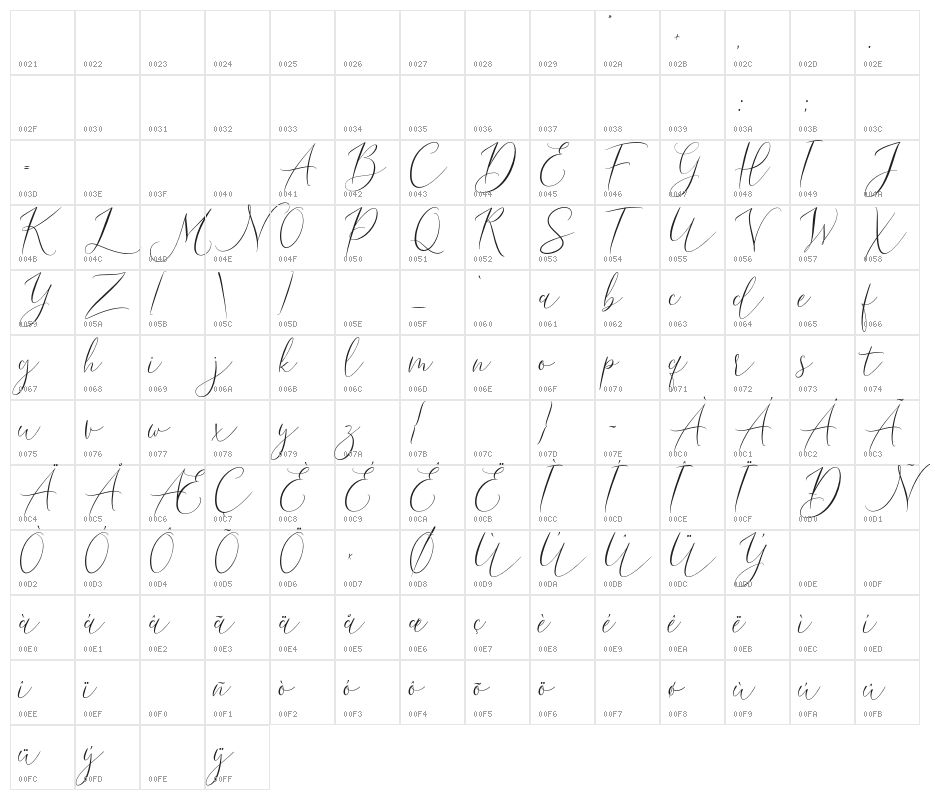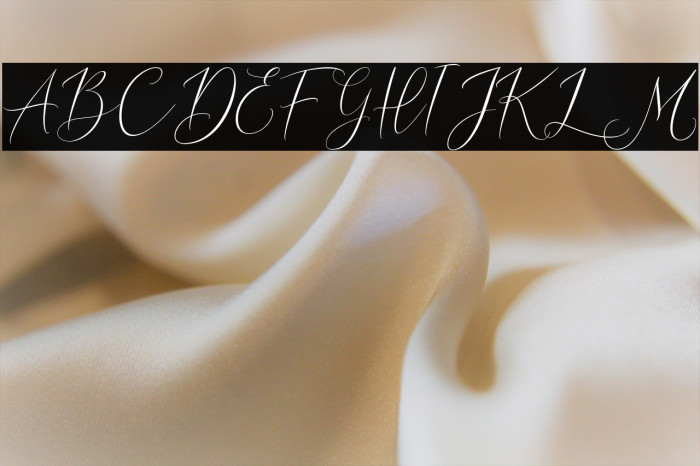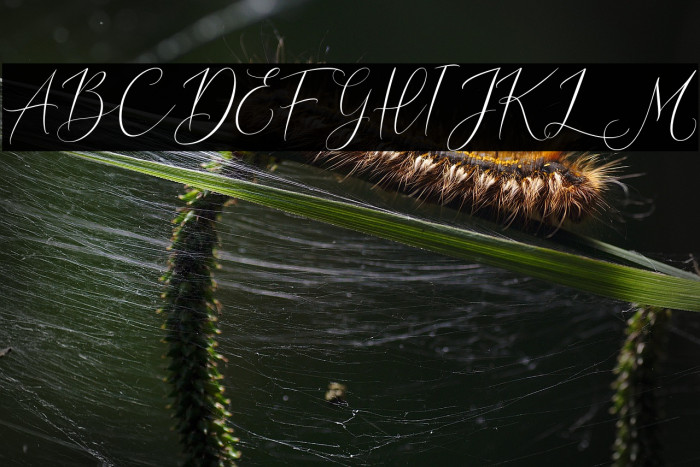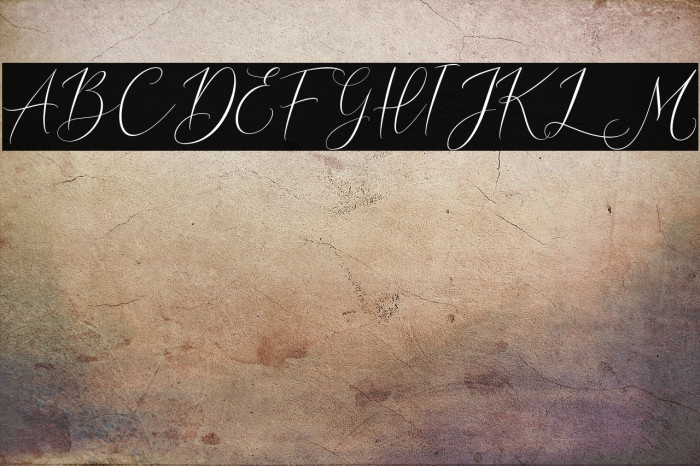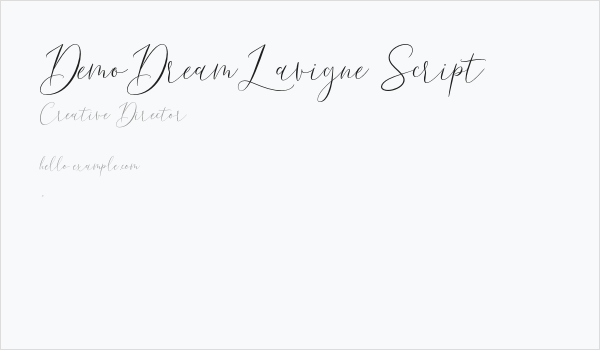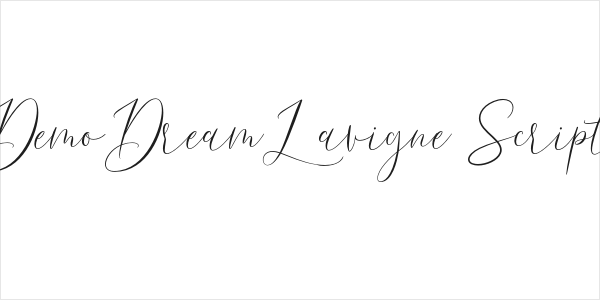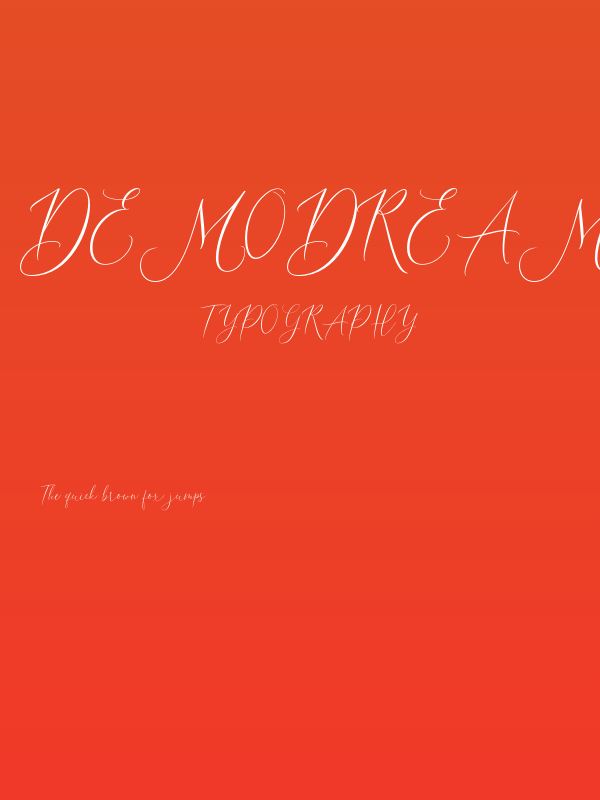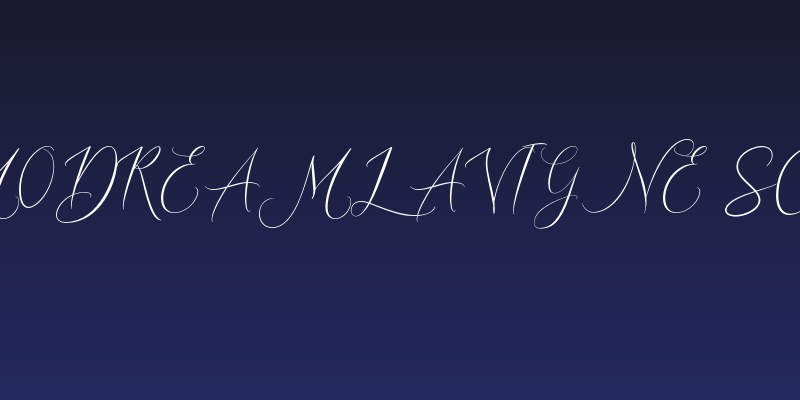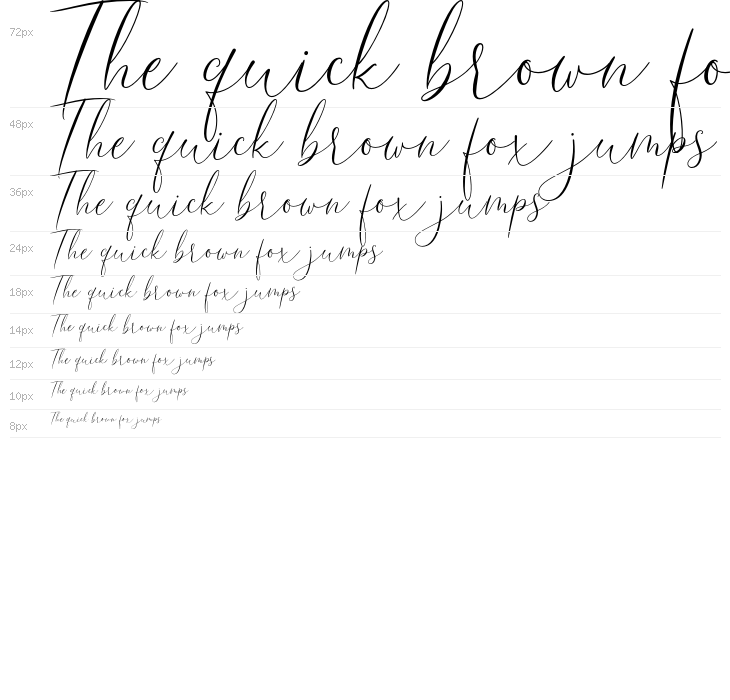
DemoDreamLavigne-Script Font
DemoDreamLavigne-Script Description
A flowing, elegant script font with delicate strokes and a handwritten style.
| Proposed Projects | Wedding invitations, greeting cards, elegant branding. |